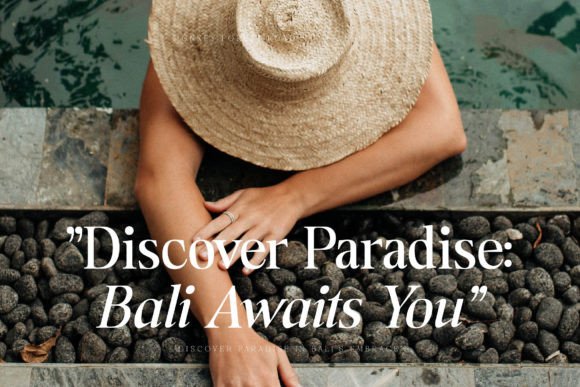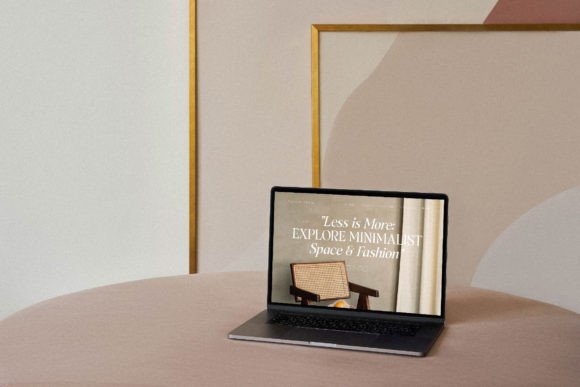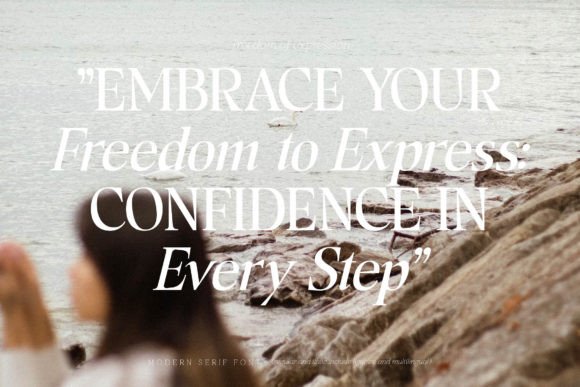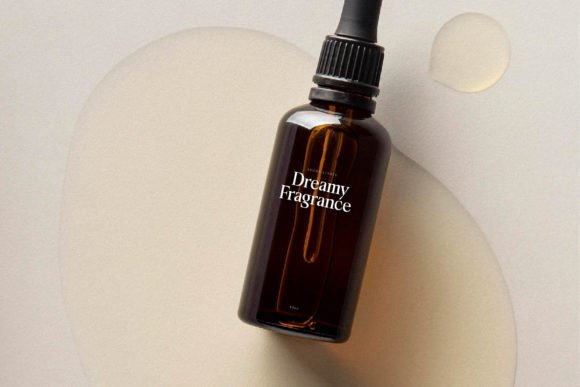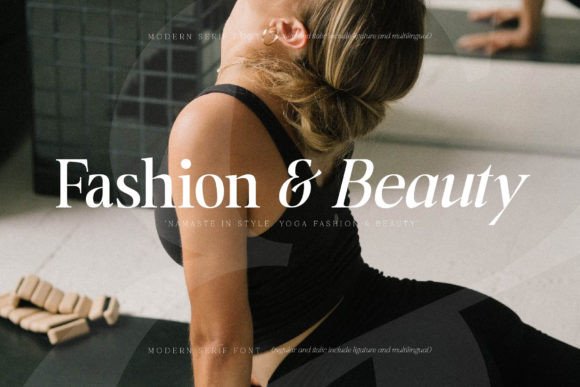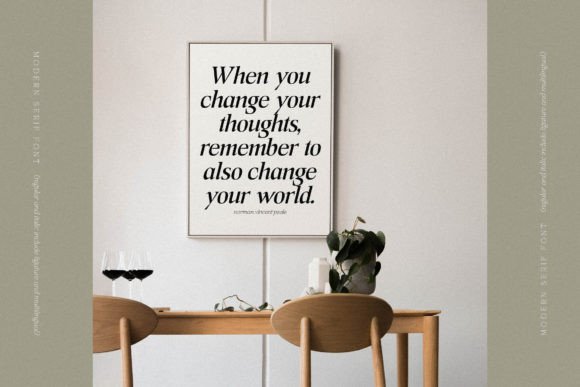
Introduction to Frenstyle Font
Frenstyle is a modern and classic serif typeface that has its own unique style and modern look.
This typeface is perfect for an elegant & luxurious logo, book or movie title design, fashion brand, magazine, clothes, lettering, quotes, and so much more .
Key Features of Frenstyle Font
Why Choose Frenstyle Font?
Frenstyle Font offers exceptional quality and versatility, making it a valuable addition to your design toolkit. Whether you’re creating for personal projects or commercial use, Frenstyle Font delivers professional results.